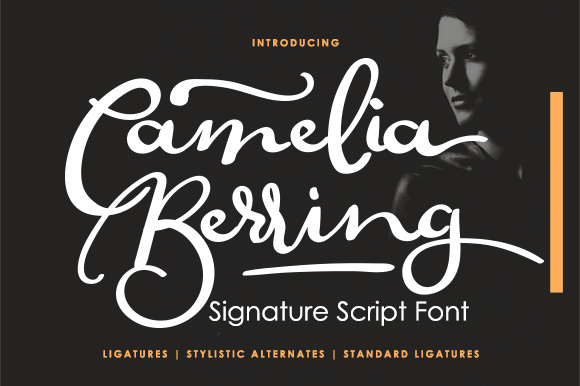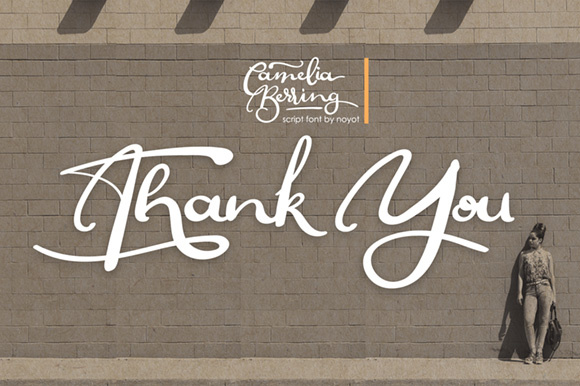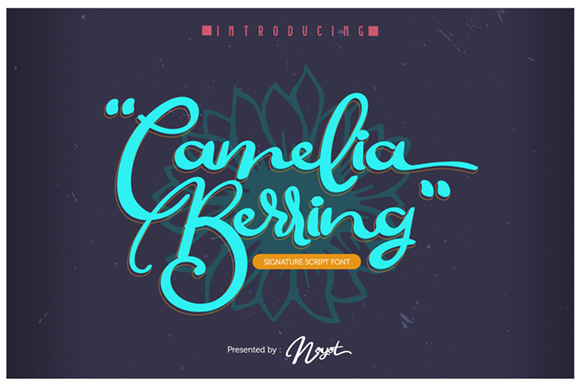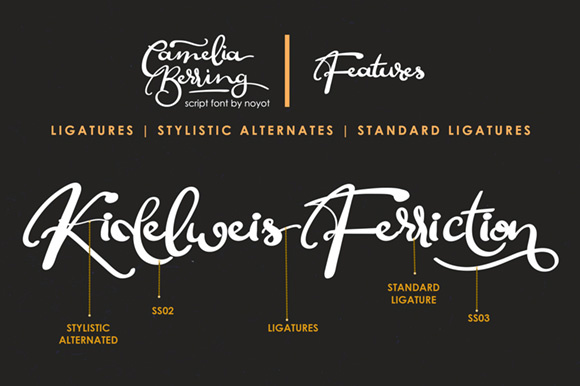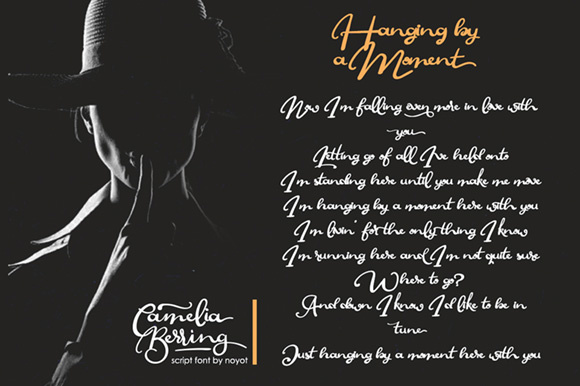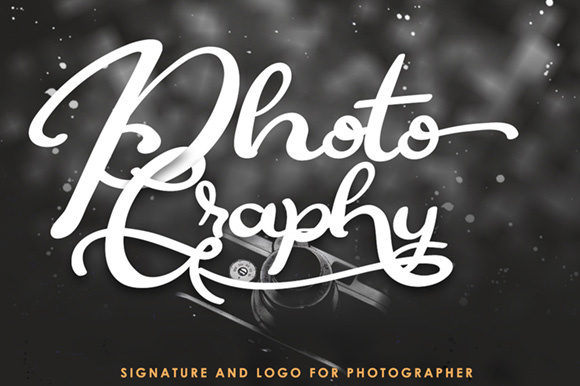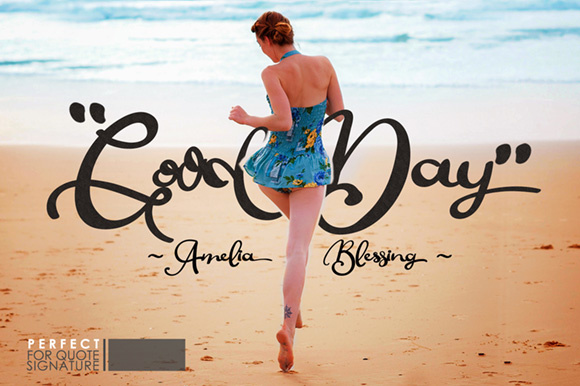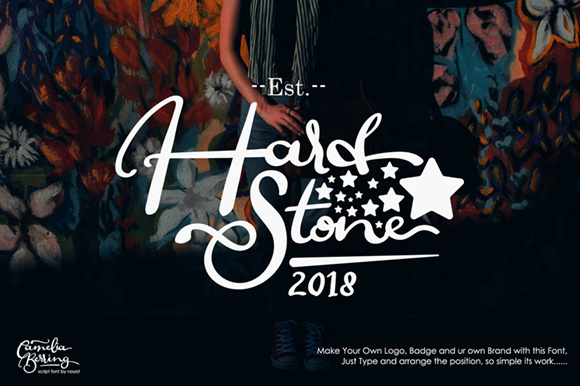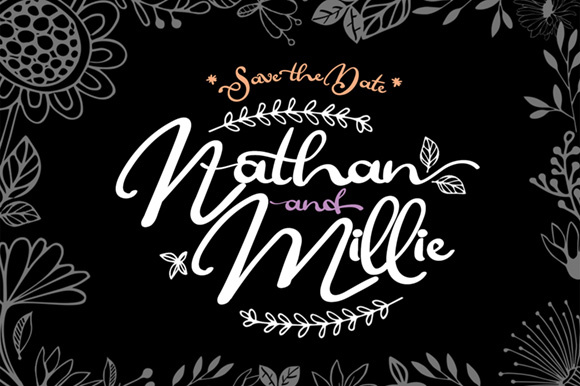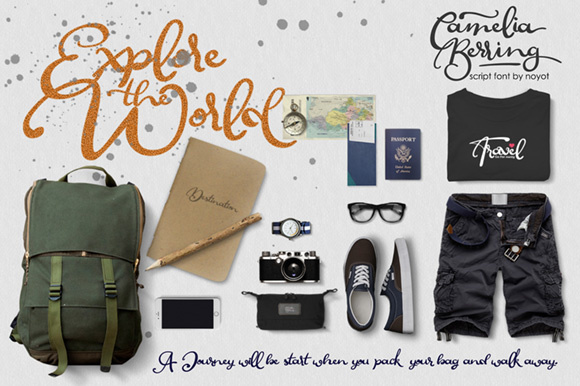
Camelia Berring Script Font
About Camelia Berring Script Font
Camelia Berring is a stunning script font based on authentic hand-lettering. It has smooth flowing characters.